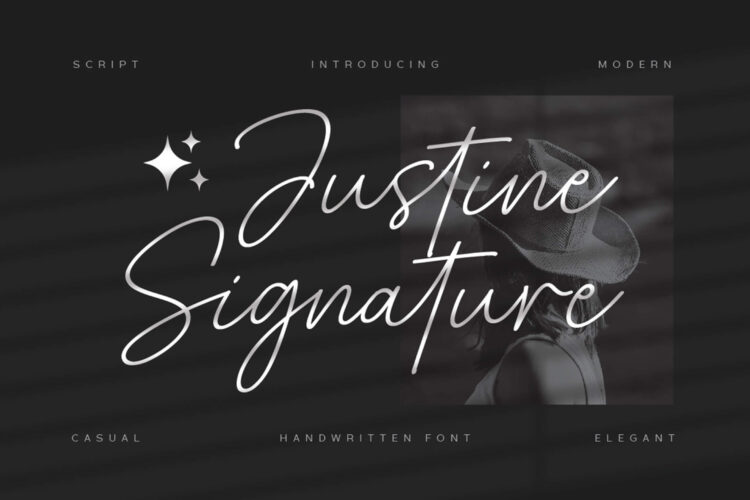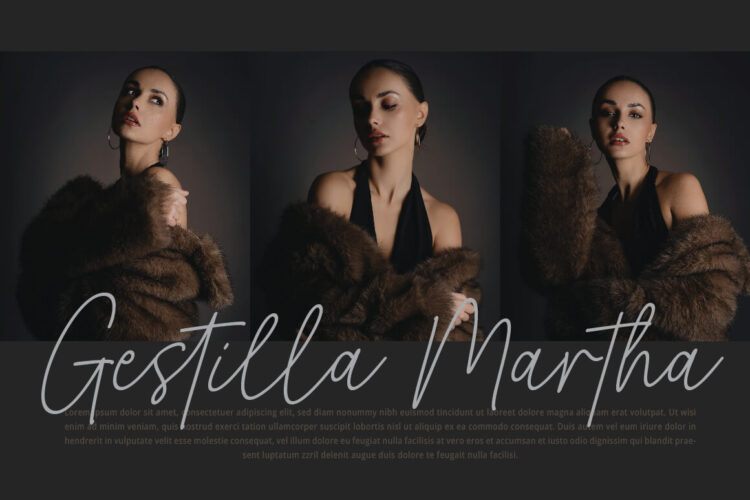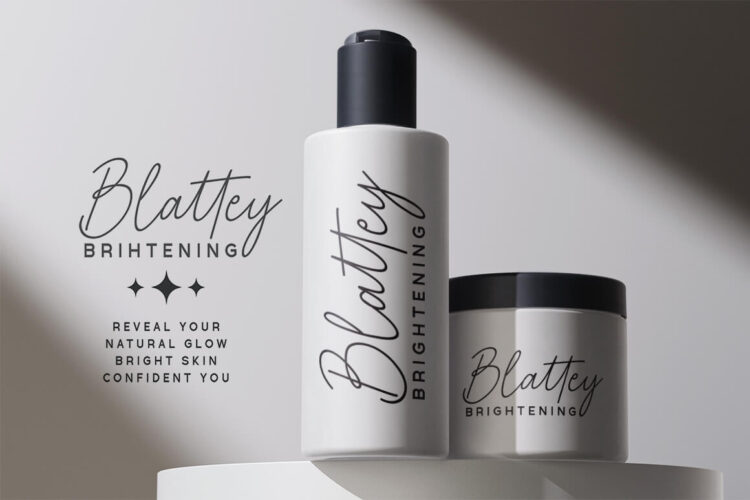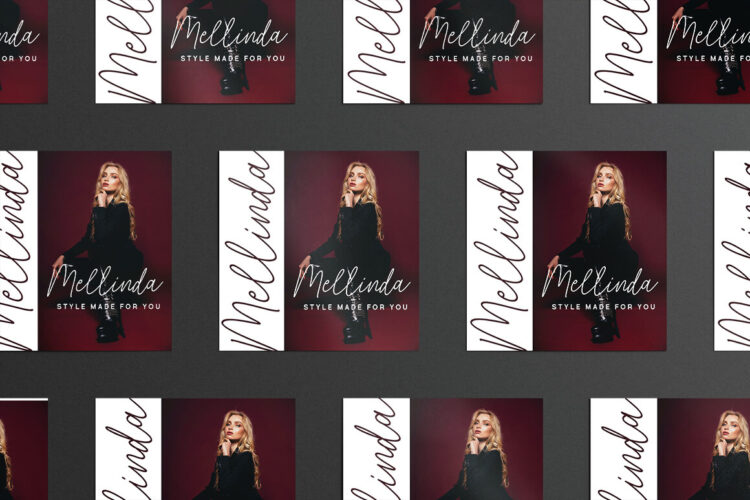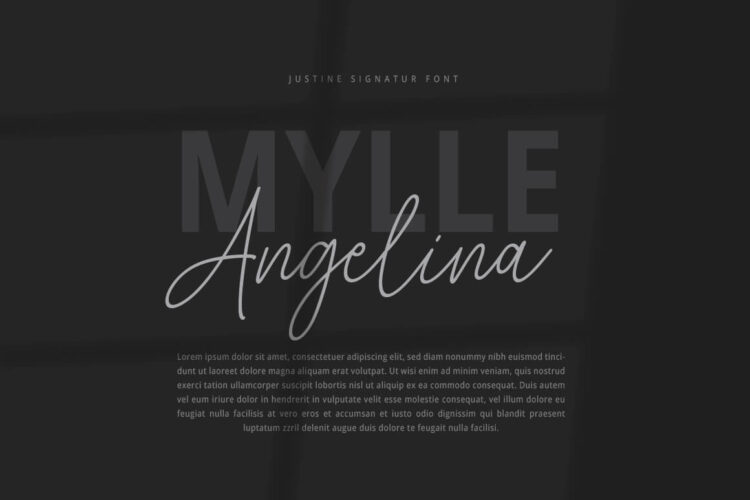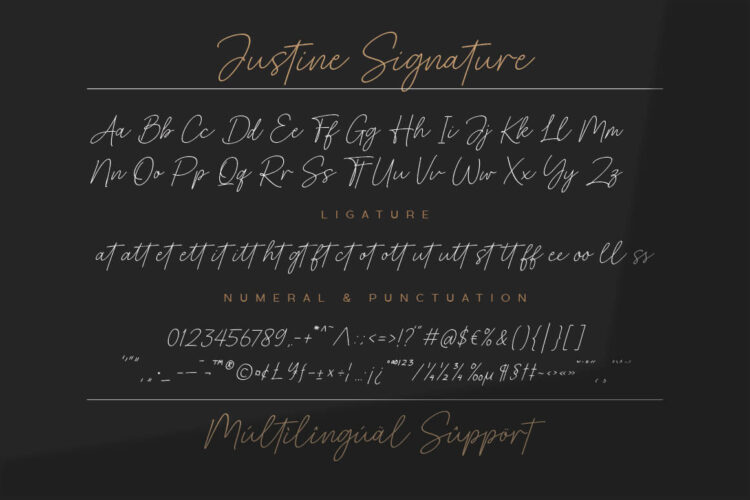
Justine Signature Script Font
Justine Signature
Justine is a stylish handwritten script typeface with smooth flowing strokes and natural signature feel. Perfect for logos, beauty branding, fashion designs, invitations, social media, packaging, and elegant editorial layouts. It brings a personal, modern, and classy touch to every design.
• Uppercase & Lowercase
• Numbers & Punctuation
• Ligature
• Multilingual Support
Add an elegant signature style to your creative projects with Justine.